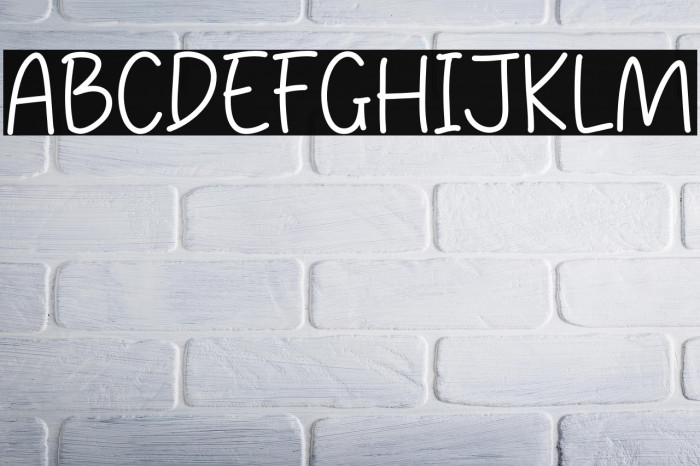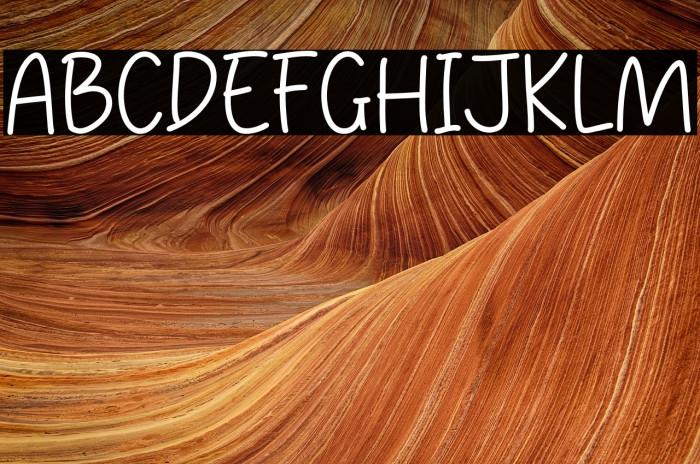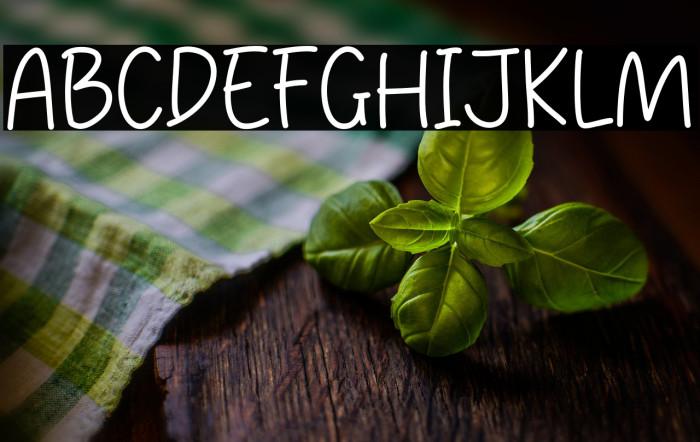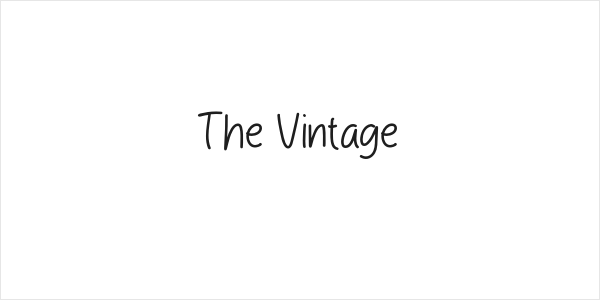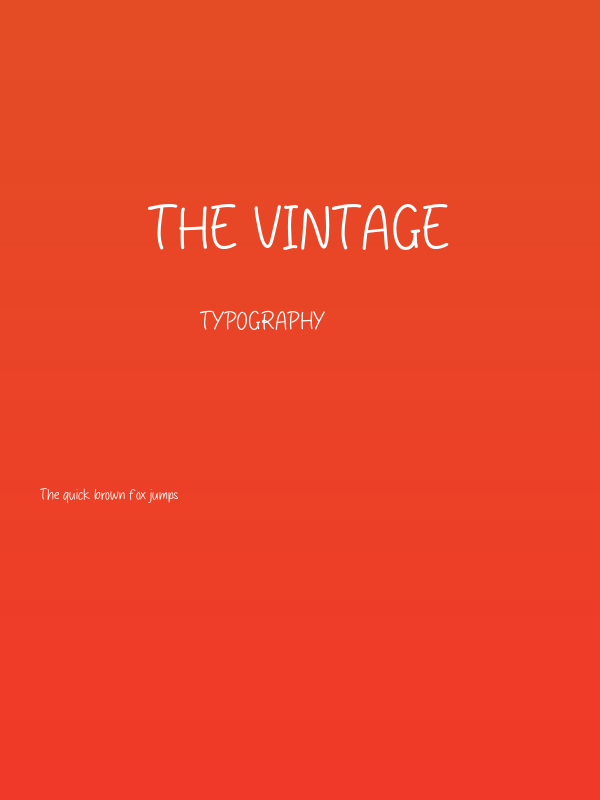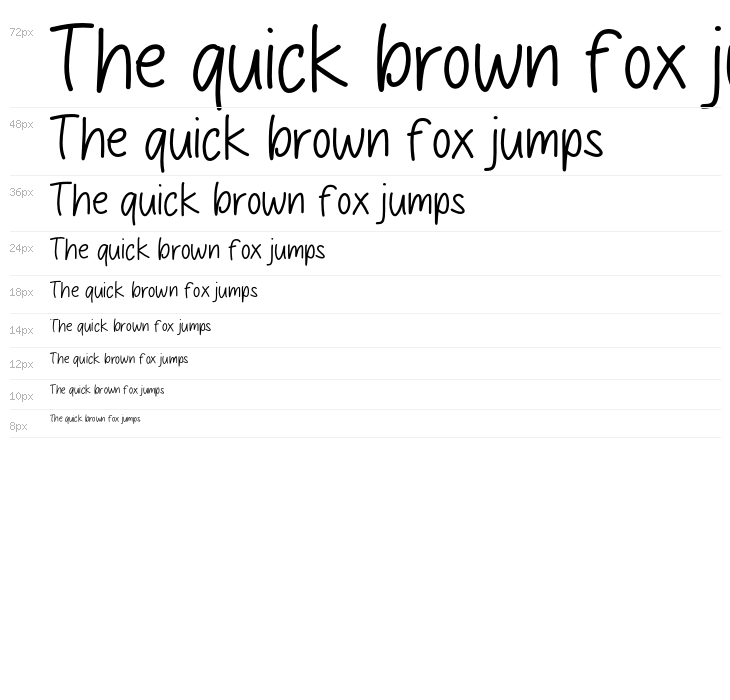
The Vintage Font
The Vintage Description
This font features a playful and informal handwritten style, characterized by its smooth, flowing lines and slightly irregular shapes. The letters are rounded and have a casual, friendly appearance, making it ideal for projects that require a personal touch. The uppercase and lowercase letters maintain a consistent style, with a slight slant that adds to the handwritten feel. The numbers and special characters are designed to match the overall aesthetic, ensuring a cohesive look across all text elements. This font is versatile and can be used in a variety of creative projects, from invitations to social media graphics.
| Use Case | Logos, Headlines, Informal Text |
| Proposed Projects | Ideal for invitations, greeting cards, social media graphics, and personal branding. |